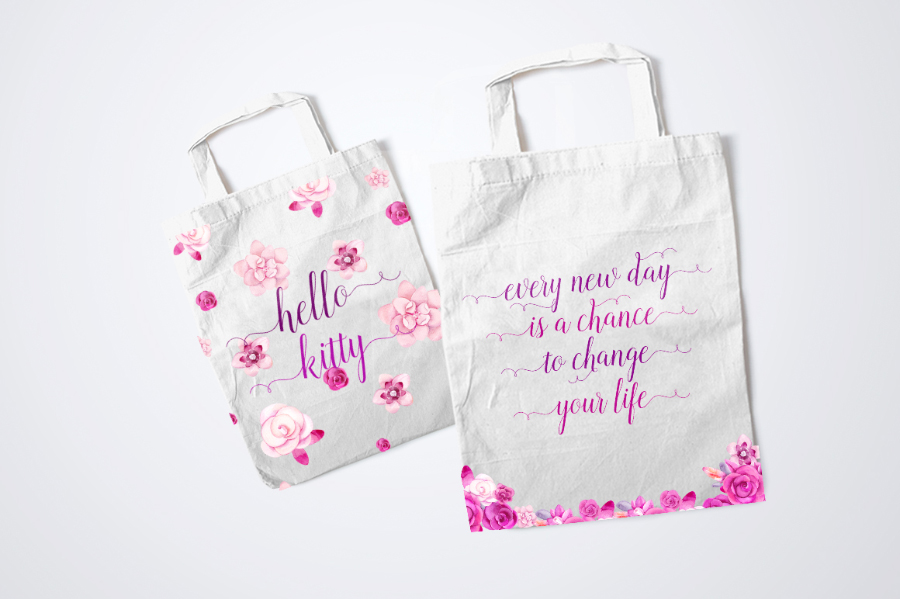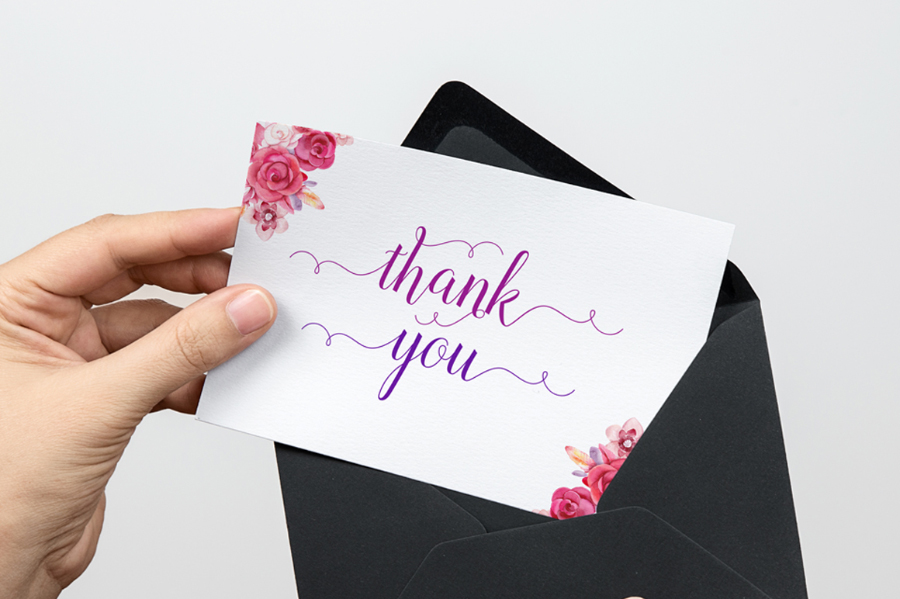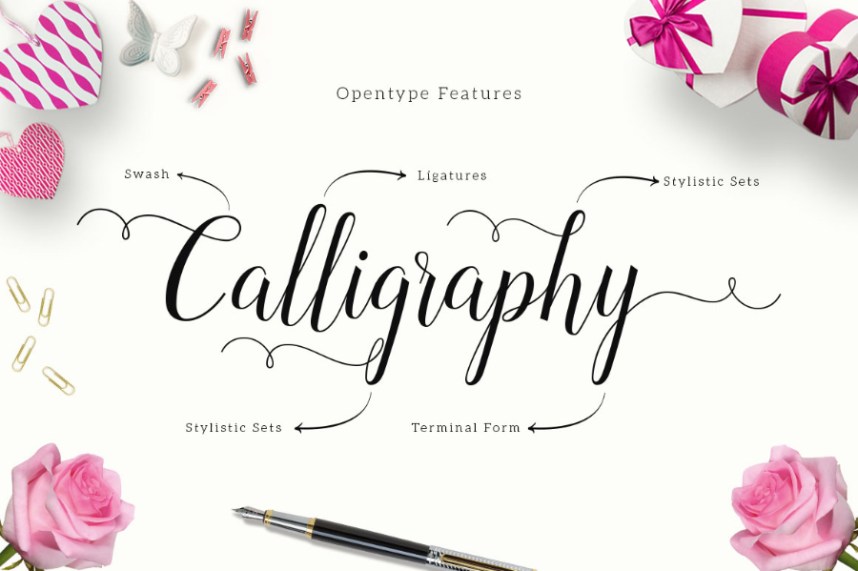
Revallyna Script Font
Revallyna Free Demo Font
You will get a nice typeface calligraphy, it will make your design more professional and beautiful. Introducing Revallyna Script Font! Revallyna Script designed and shared by Unicode. Revallyna Script – a new fresh & modern script with a sweet calligraphy-style, decorative characters and a dancing baseline! So beautiful on invitation like greeting cards, branding materials, business cards, quotes, posters, and more!